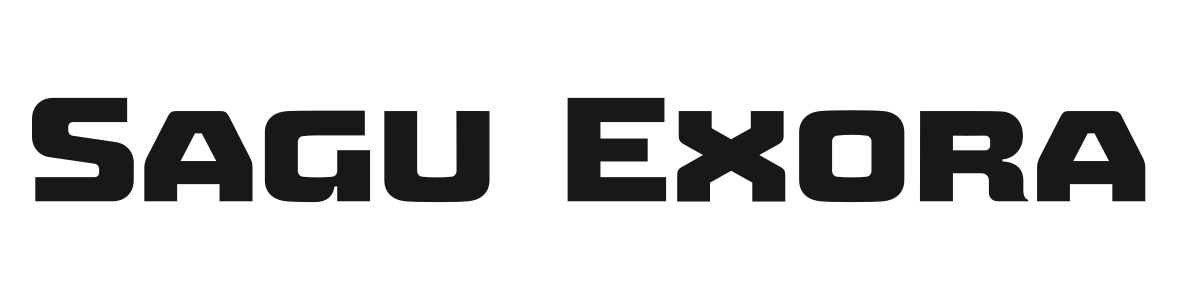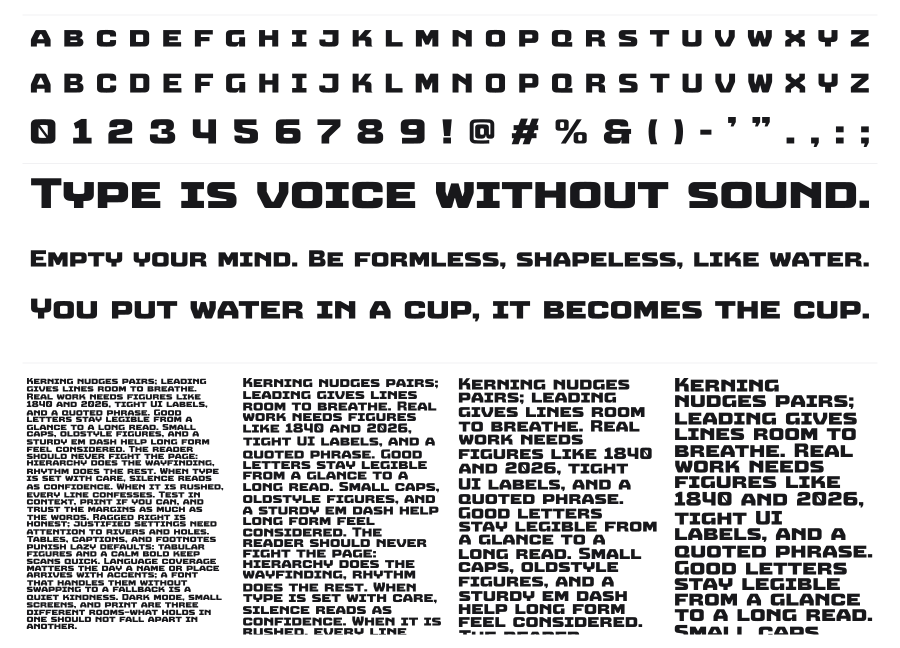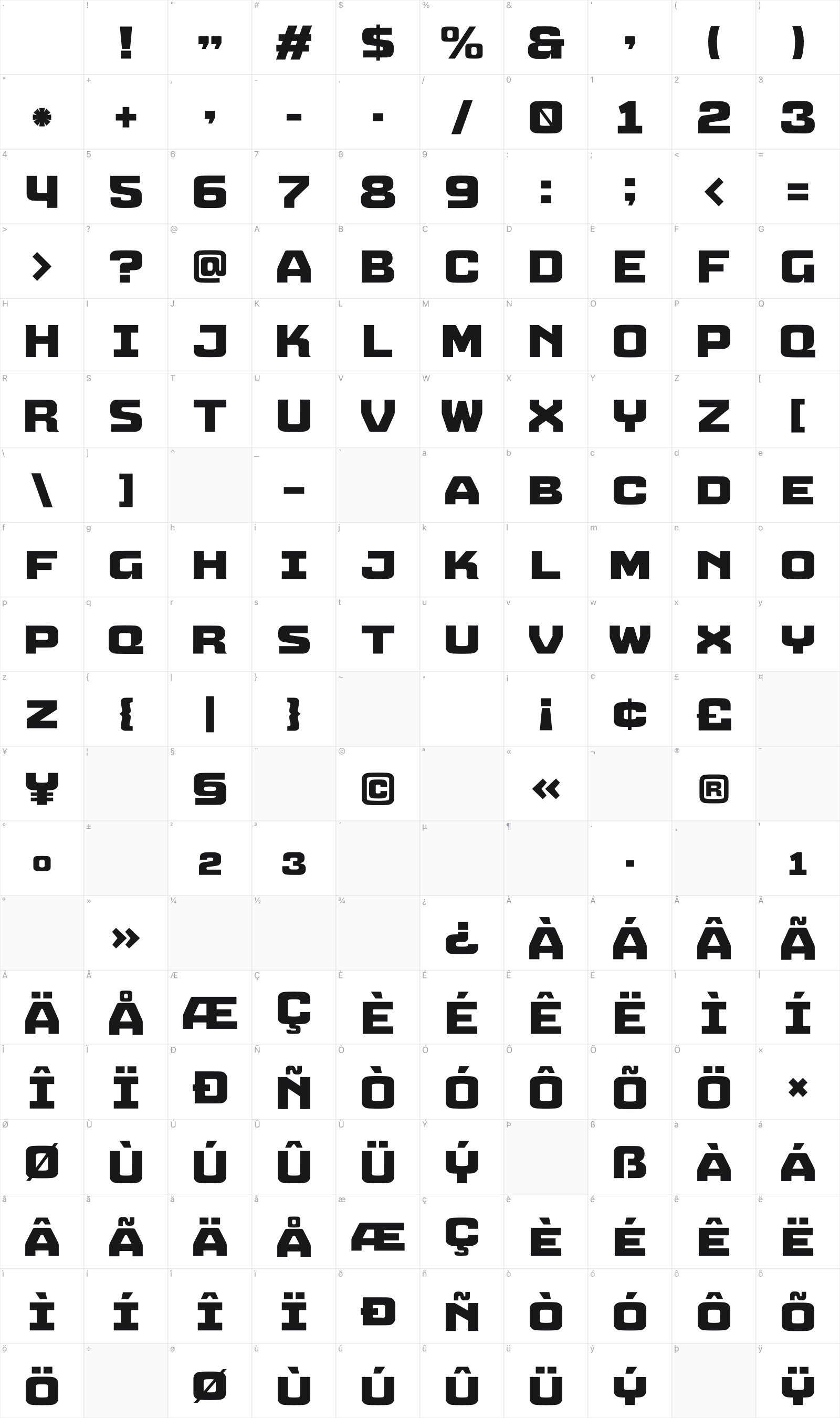
Sagu Exora
Sagu Exora is a heavy squared sans-serif with thick, chunky strokes and angular notch details carved into the interior corners of each character. The result is a dense, forceful display face with a retrofuturistic edge that recalls 1970s sci-fi lettering and military stencil typography. It commands attention at large sizes and suits branding that needs to feel bold and unapologetic.